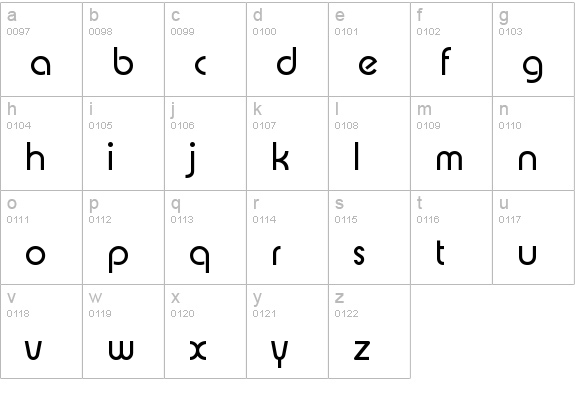
Xpressive Regular is the standard, neutral variant in the Xpressive typeface family \xE2\x80\x94 well suited to general body text, paragraphs, and standard typographic work.
Xpressive Regular font is a versatile and stylish typeface that effortlessly combines modernity with a touch of elegance. Its clean lines and sleek curves make it perfect for a wide range of design projects, from branding to editorial work. This font exudes a sense of sophistication and creativity, making it ideal for adding a unique flair to your creations. What sets Xpressive Regular font apart is not only its stunning design but also its accessibility. It is available for free download at FontsMarket.com, making it easy for designers of all levels to access and use this beautiful typeface in their projects. Whether you're working on a website, poster, or logo, Xpressive Regular font is sure to add a touch of class and creativity to your designs. Download it today and elevate your projects with this modern and eye-catching font.